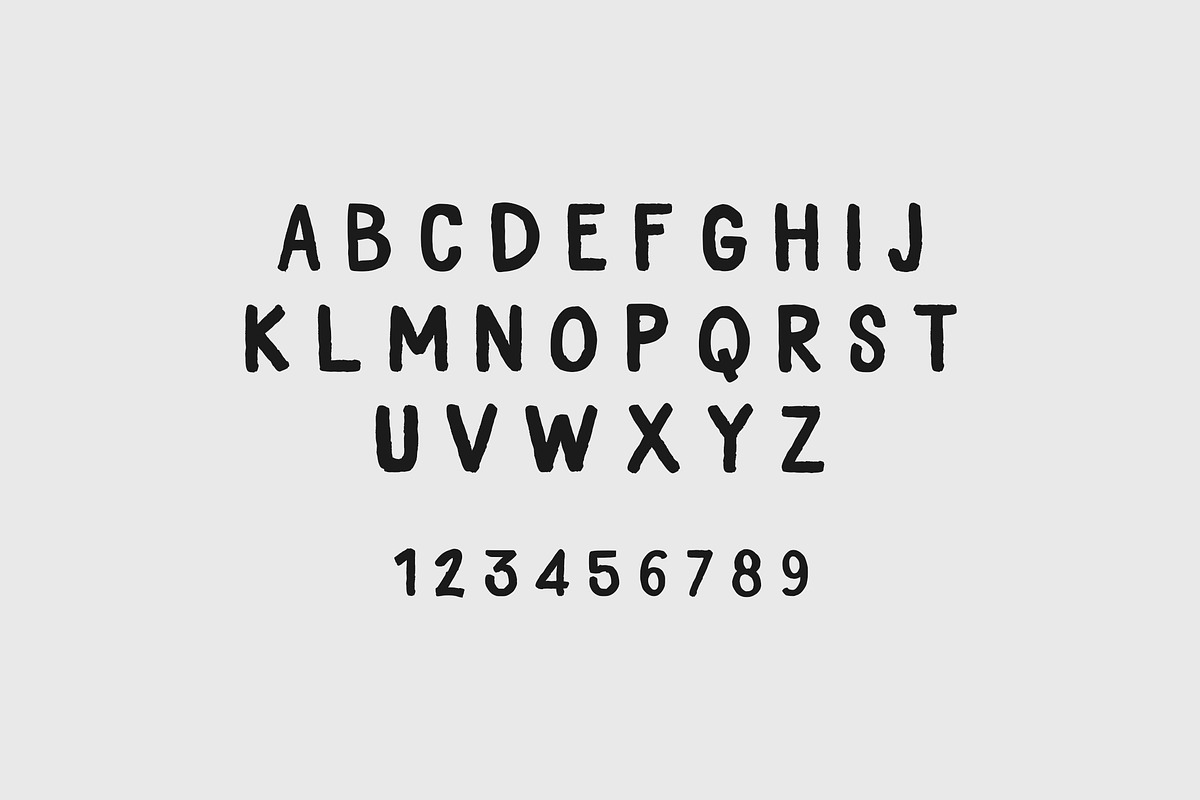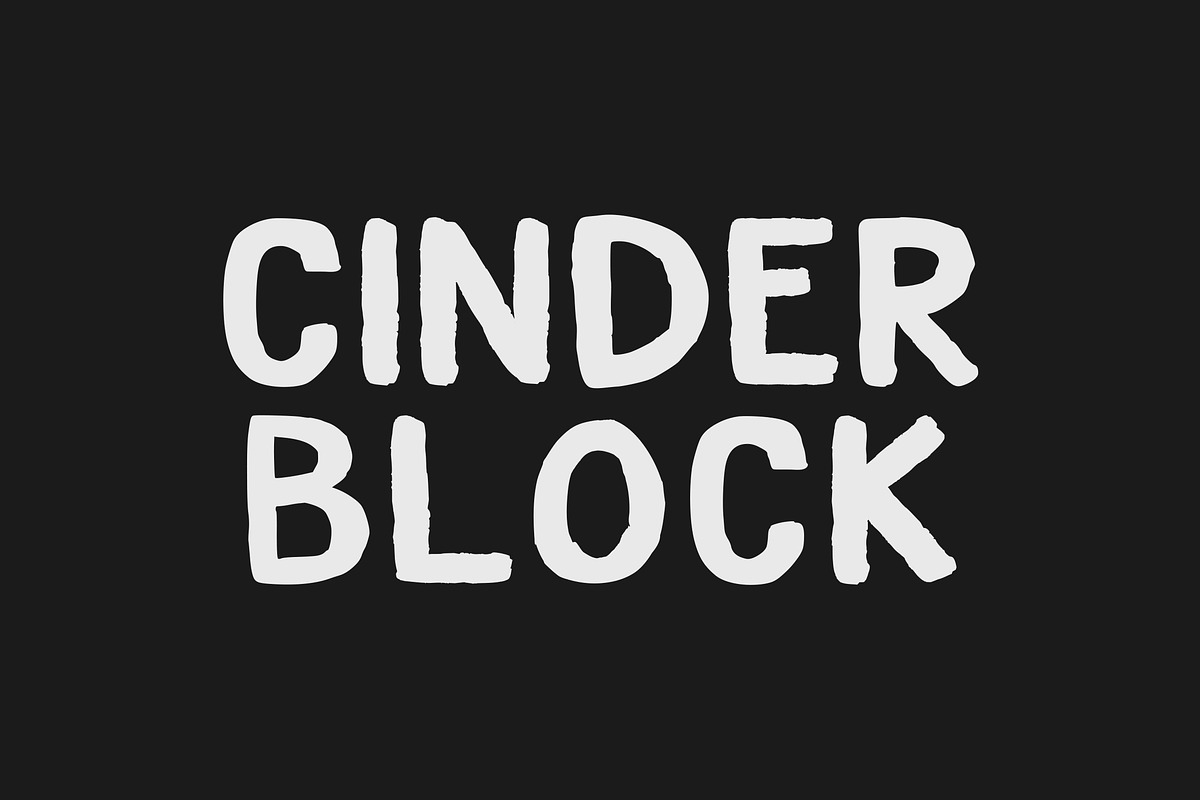
CINDERBLOCK | A heavy brush font for
CINDERBLOCK is a heavy brush font, made for big bold expressive statements.
Slap it on a poster, card or in a presentation.